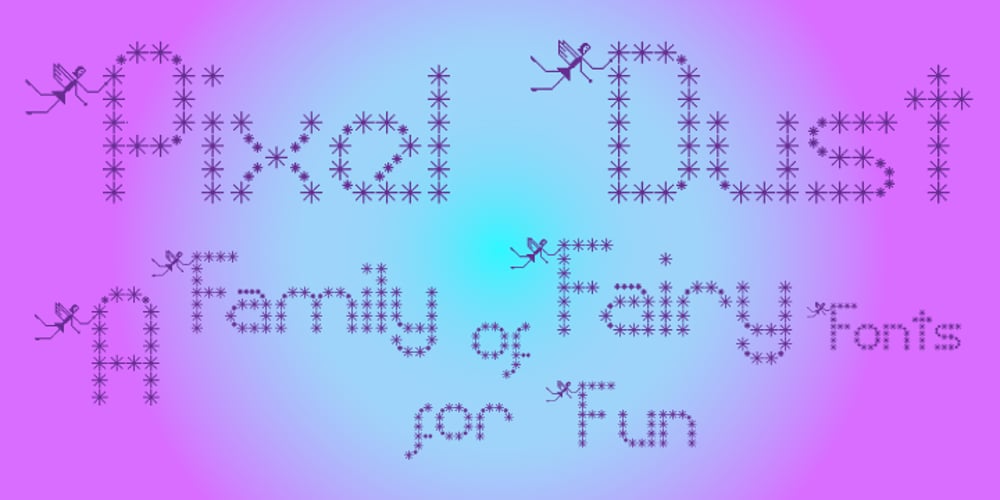
Pixel Dust Font Family was designed by Wilson Thomas and published by Funk King. Pixel Dust contains 6 styles and family package options. The Pixel Dust Family is a group of six fonts sprinkled with fairy dust. A basic display font – simple, yet enchanting, made with a playful innocence – just don’t make the faeries mad.